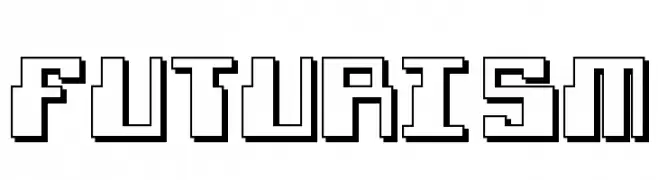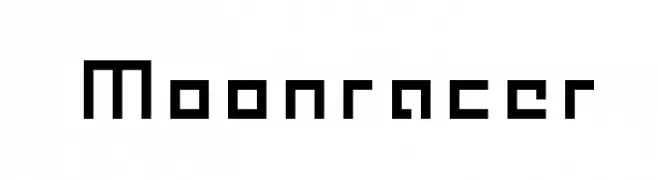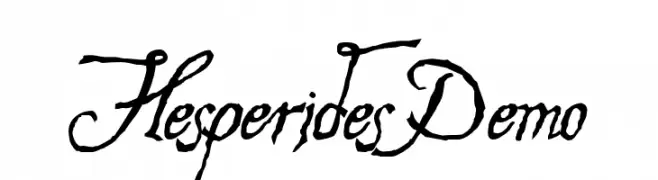
( Fonts by Paul Lloyd )
A classic, light serif font with a condensed width and medium contrast.
( Fonts by Neale Davidson - www.pixelsagas.com )
A bold, angular font with a strong, battle-ready aesthetic.
( Fonts by Jacob Fisher - www.pizzadude.dk )
A futuristic, geometric font with bold, pixelated outlines.
( Fonts by dustBUST - Andreas Nylin )
A pixelated, geometric font inspired by retro digital displays.
( Fonts by The Scriptorium - Dave Nalle )
An ornate, decorative font with calligraphic elegance and intricate flourishes.
( Fonts by Mr Fisk - Mike Larsson - fontorama.net )
A distressed, grunge-style font with a textured, rugged appearance.